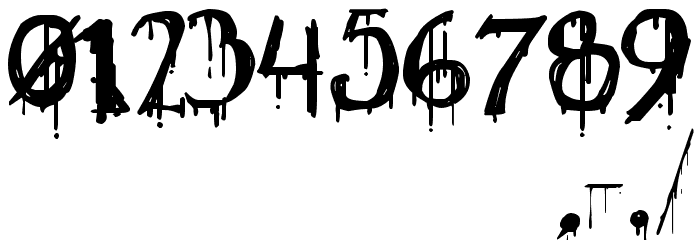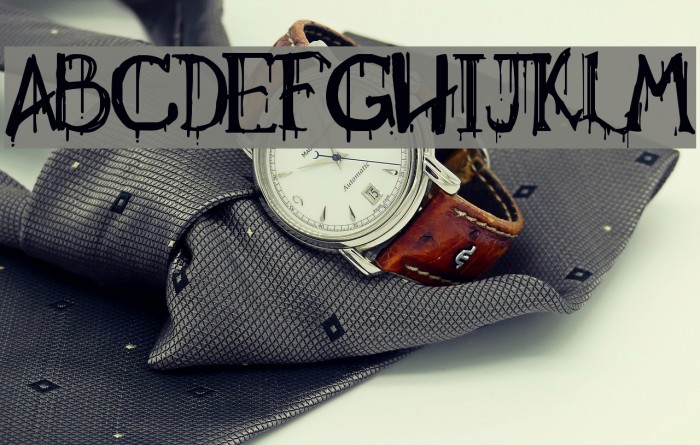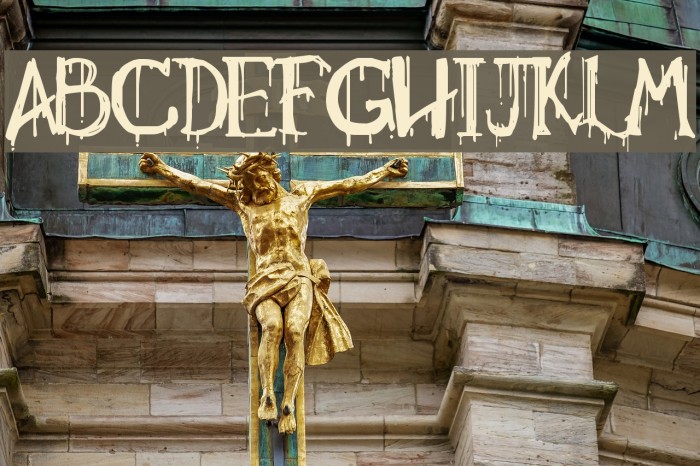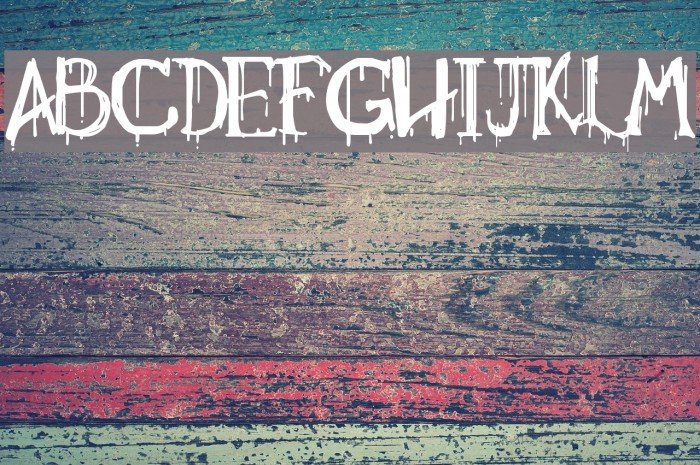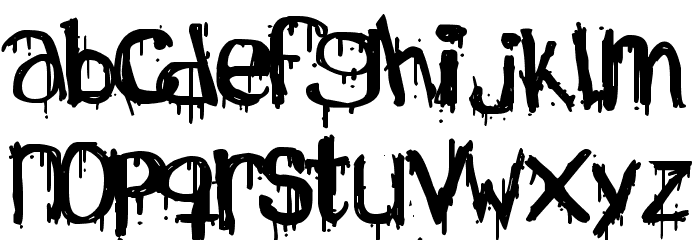
Necropsy Font
Necropsy Description
This font features a unique and edgy design with a dripping effect that mimics wet paint or ink. The characters are bold and have a slightly irregular shape, adding to the chaotic and artistic feel. The uppercase and lowercase letters maintain a consistent style, with the drips varying in length and direction, creating a dynamic and unpredictable appearance. Numbers and special characters are included, following the same dripping motif. This font is perfect for projects that require a grunge or horror aesthetic, offering a striking visual impact.
| Overall Style | Grunge, Edgy, Artistic |
| Proposed Projects | Ideal for horror movie posters, Halloween event flyers, album covers for rock or metal bands, and street art-inspired designs. |